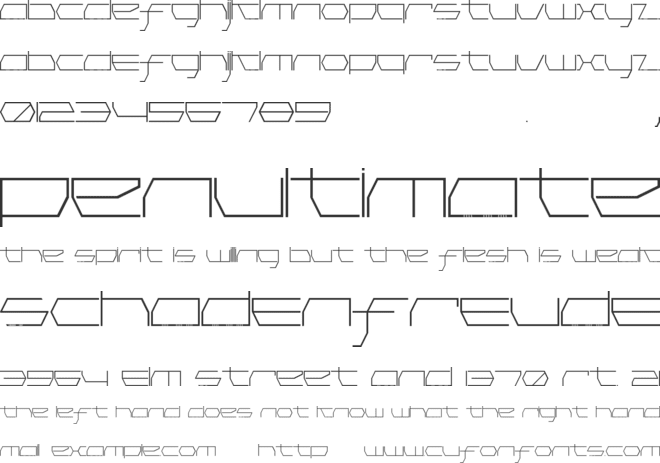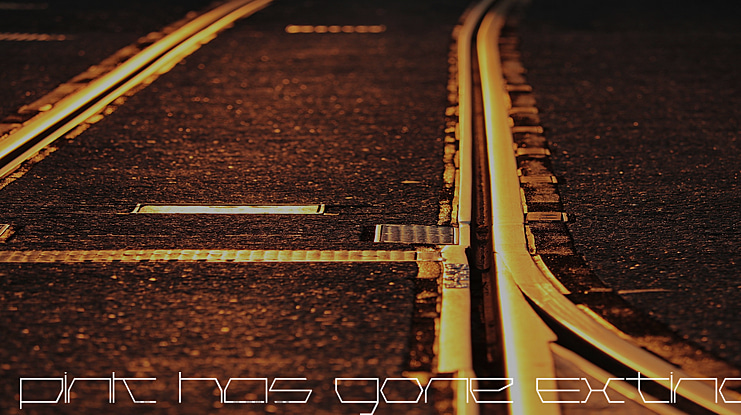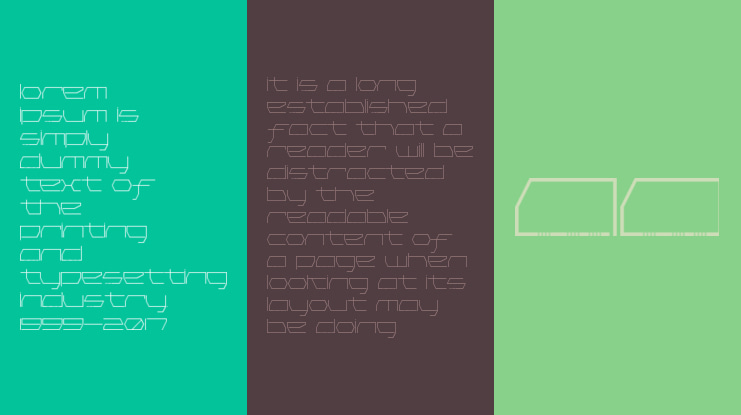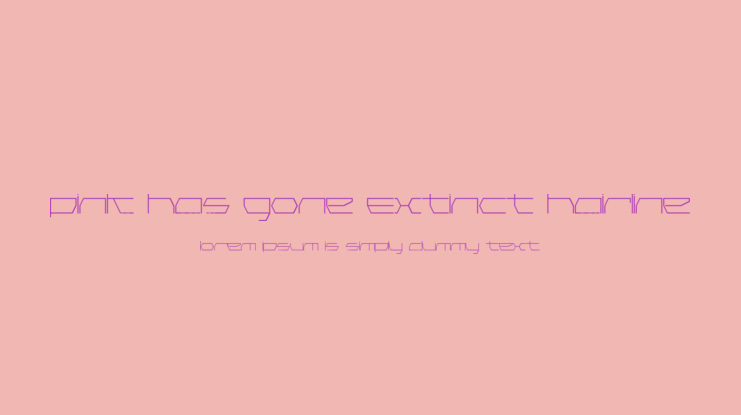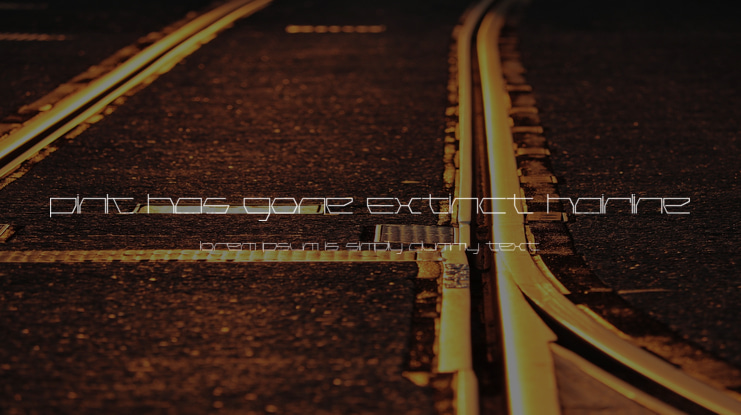
Pink Has Gone Extinct Hairline Font Family
Combining futurism and art-deco, all the 5 variants of Pink Has Gone Extinct break boundaries. 3 different weights + 2 special versions. Enjoy!